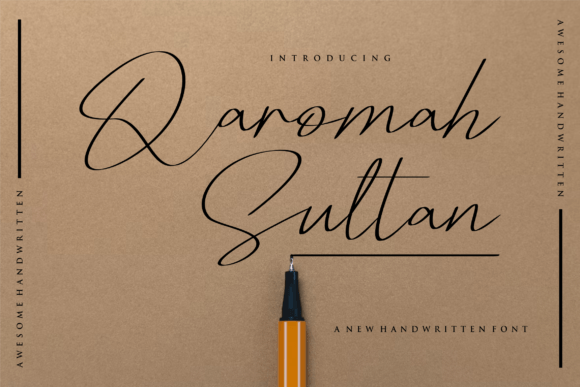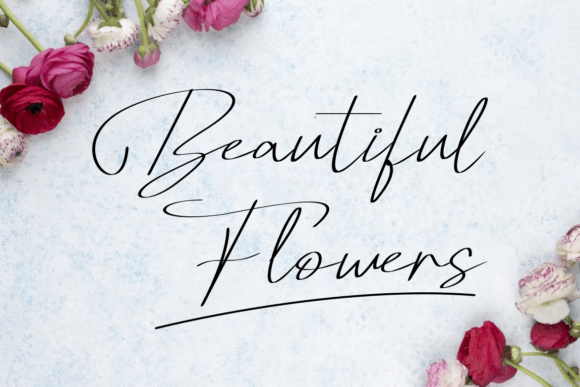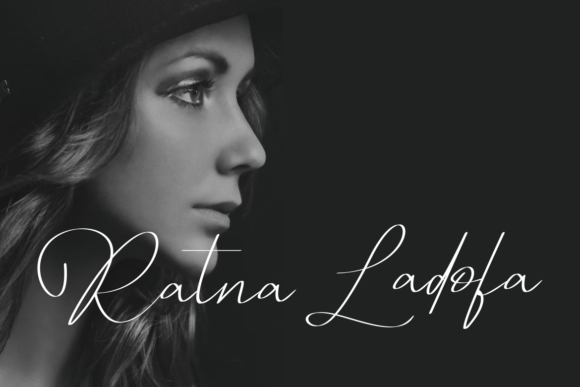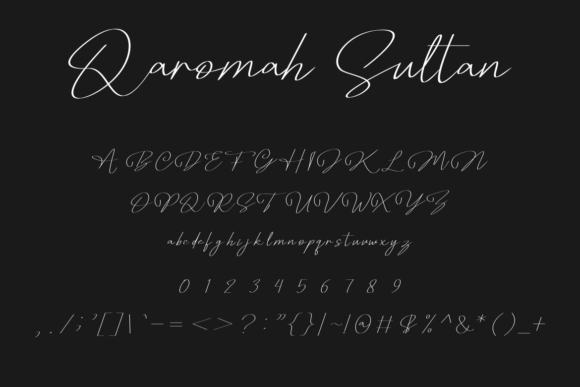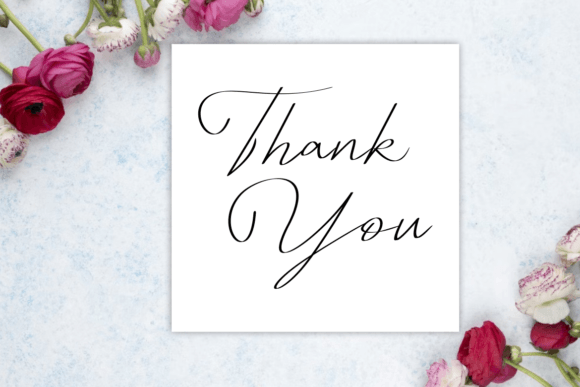
About Qaromahsultan Font
Qaromahsultan is a modern and authentic script font designed to make your designs stand out. Whether you’re building a brand identity, designing esports graphics, or printing custom t-shirts, the Qaromahsultan font download is a solid choice that adds bold personality and sleek form to your projects.
Its clean strokes and edgy style give it a unique presence, suitable for designs that demand attention. With its handcrafted feel and professional polish, Qaromahsultan blends modern appeal with creative flair.
Best Uses for Qaromahsultan Font
The Qaromahsultan font download is incredibly flexible and looks great across various design fields, including:
Logos & Wordmarks – Make your brand identity pop
T-Shirt Printing – Perfect for streetwear, esports, or promotional apparel
Esports & Gaming Graphics – Ideal for team names, streaming overlays, and gaming merch
Social Media Posts – Add stylish script to your Instagram, YouTube thumbnails, or story templates
Event Posters & Flyers – Bold, readable, and full of attitude
No matter the project, Qaromahsultan delivers strong visual impact in both print and digital formats.
Font Style: Modern Script
Design: Authentic, edgy, and stylish